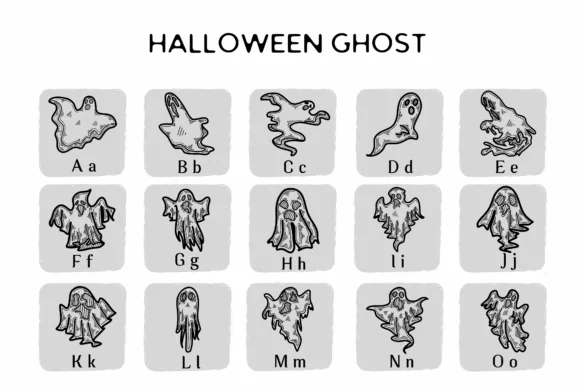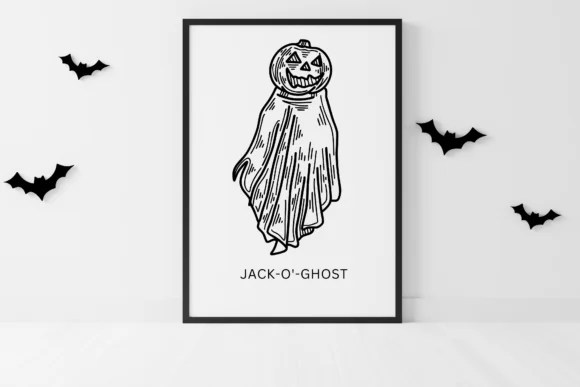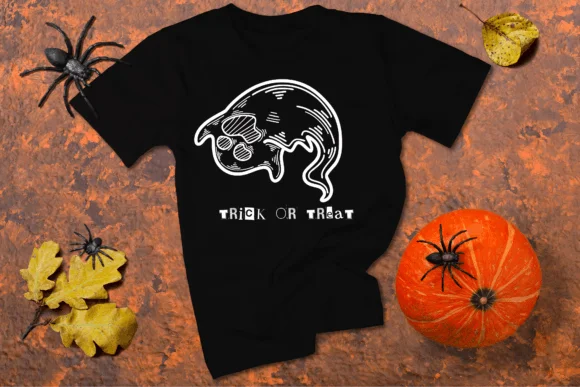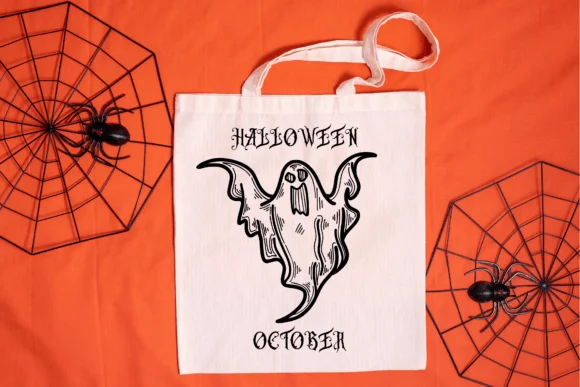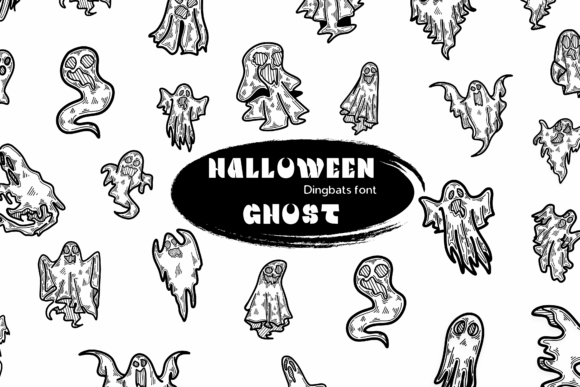
Halloween Ghost Font
This ethereal font is perfect for ghost-themed Halloween parties, spectral decorations, phantom celebrations, ghostly Halloween invitations, ethereal seasonal marketing, spirit-themed horror events, supernatural Halloween branding, haunting Halloween displays, ghostly costume parties, and supernaturally ethereal Halloween messaging materials.
Halloween Ghost Font is exciting because it captures the mysterious essence and ethereal beauty of ghostly spirits through its hauntingly crafted letterforms that seem to float between the physical and supernatural realms like translucent apparitions drifting through moonlit corridors. The font features flowing, wispy characters with ghostly proportions and spectral details that evoke the spine-tingling presence of benevolent spirits who linger in our world not to frighten but to remind us of the eternal connections that transcend death, incorporating flourishes and ethereal elements that create typography as mysteriously beautiful and peacefully haunting as the gentle rustle of unseen presence in a quiet room. Each letter showcases the delicate balance between presence and absence that makes ghosts such compelling symbols of Halloween's deeper mysteries, with translucent curves and spectral accents that transform ordinary text into expressions of supernatural grace that capture the way ghost stories remind us that love and memory can transcend the boundaries between life and death.
The Halloween Ghost Font family includes spectral style variations: Regular, Bold, Light, Ethereal, and Phantom versions. The collection features special ghostly elements including spectral accents, floating flourishes, ethereal details, and supernatural ornaments. Additional components include ghostly borders, spectral frames, ethereal decorations, and hauntingly beautiful ornamental designs that enhance the font's Halloween ghost appeal and create cohesive supernatural spirit themes.
Paranormal enthusiasts and ethereal celebration planners will find Halloween Ghost Font to be an exceptional resource for creating authentically supernatural Halloween communications that celebrate the mysterious beauty and spiritual significance of ghostly encounters. This ethereally crafted font transforms ordinary Halloween messaging into ghostly expressions that resonate with audiences who appreciate the deeper spiritual dimensions and mysterious beauty that make ghost themes such compelling elements of Halloween's more contemplative and spiritually meaningful celebrations.
The typeface includes comprehensive character support with spectral styling that maintains excellent readability while conveying the ethereal beauty and supernatural presence of Halloween ghost celebrations. The font's hauntingly graceful design ensures mysteriously beautiful results across both intimate spiritual applications and larger supernatural Halloween productions.
Perfect for ghost tours, spiritual Halloween events, ethereal celebrations, and supernaturally beautiful seasonal marketing, this font delivers hauntingly graceful visual impact that communicates spiritual mystery, ethereal beauty, and the profound truth that ghost stories remind us of the eternal connections that make Halloween a time for remembering and honoring the spirits of those who came before us.